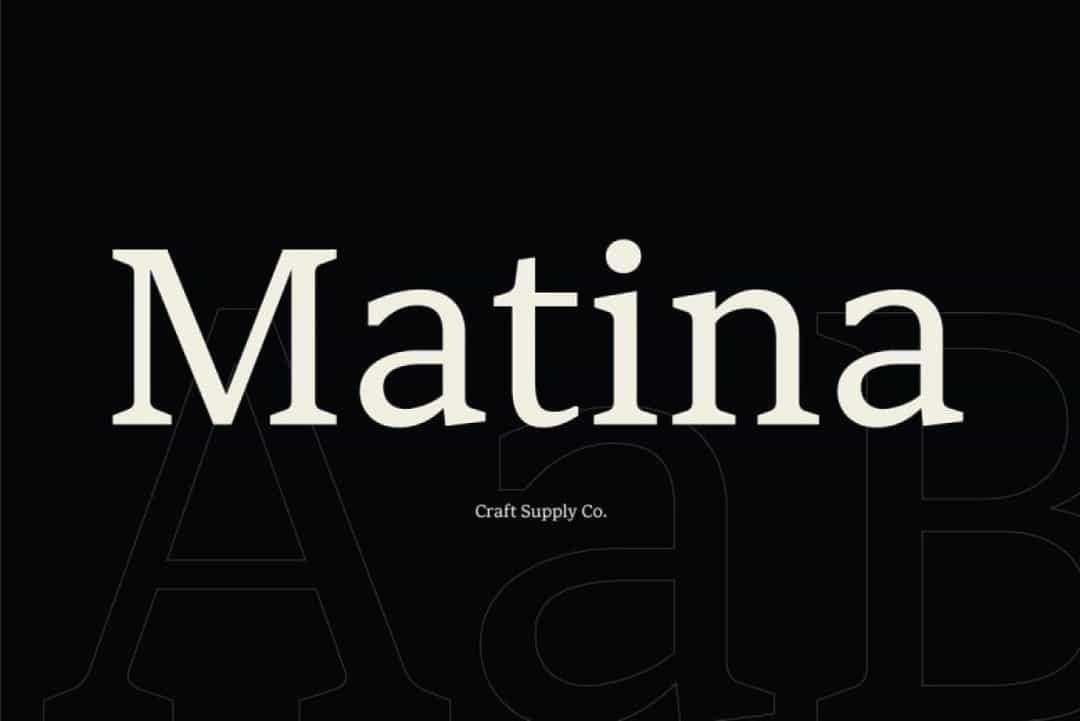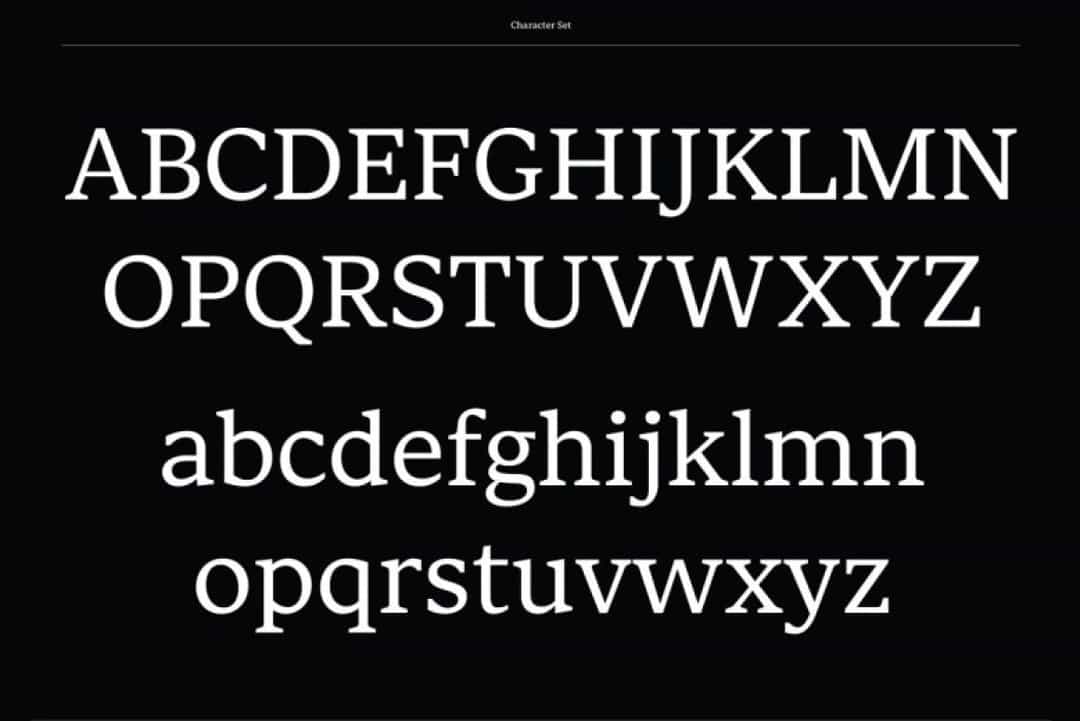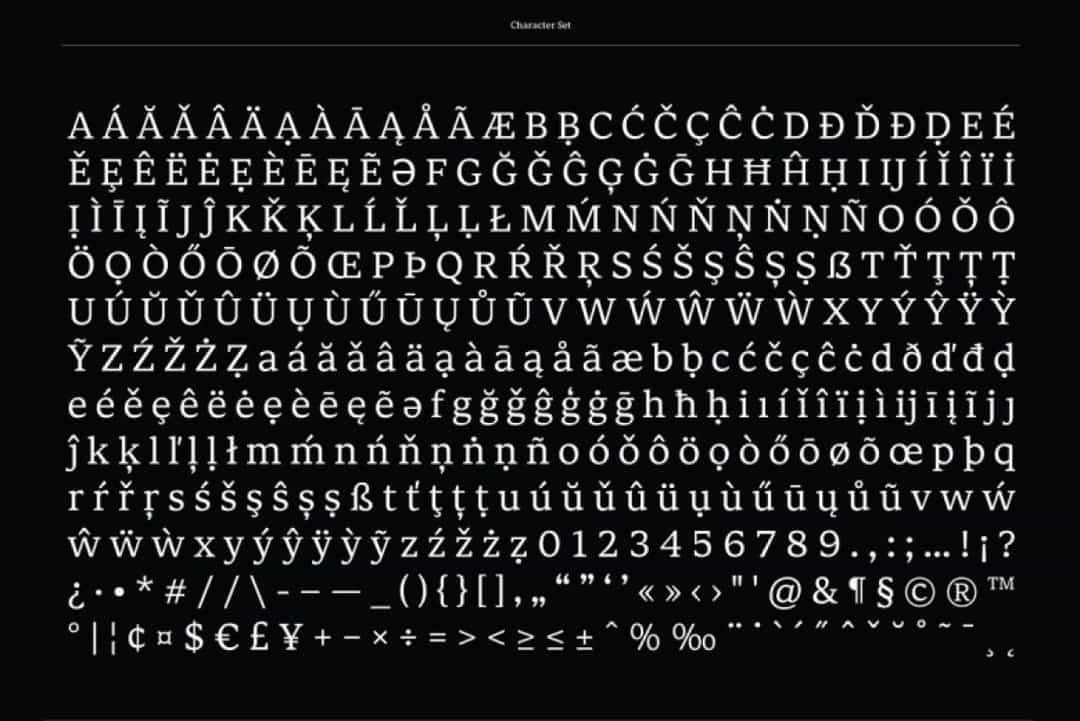
Matina Serif was designed specifically to accommodate smaller texts like magazine novels and pocket books novellas. Featuring moderate contrast levels, tall height and ample counters suited for body text sizes of 7pt-14pt.